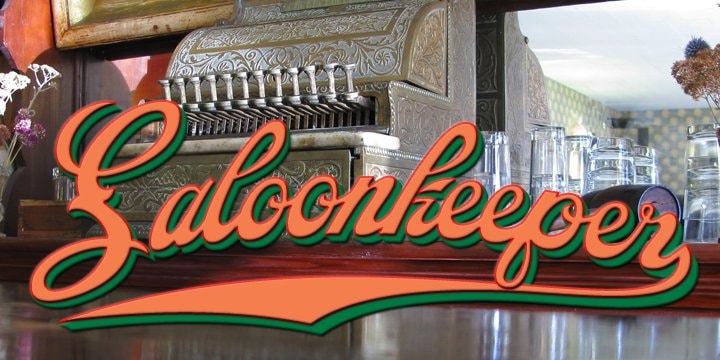
Saloonkeeper, with its western looking spurs, was inspired by the Leinenkugel’s brewing label.
The Saloonkeeper Pro font family introduces something new for script fonts, it’s called the Shadow Layer font, script fonts have connecting letters and this makes it difficult or impossible to create an open faced shadow version and make the letters connect in proper alignment with each other. The solution was simple make a separate font for the shadow that’s in registration with the first font, you must use an application that allows you to work in layers in order to take advantage of this special font.
The Shadow Layer font was designed to give the letters a cast or extruded shadow appearance that you would find in sign lettering versus the standard drop or offset shadow that can easily be created in most graphic arts programs.